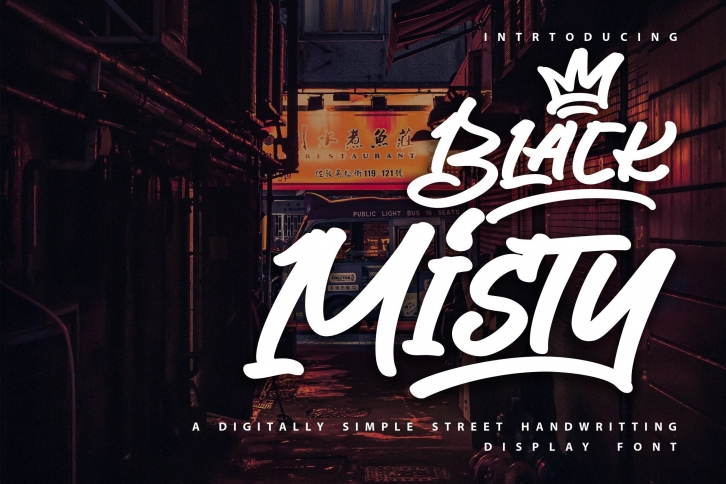
Black Misty is a street handwriting display font with a calligraphy style. It looks so beautiful on invitations, greeting cards, branding materials, business cards, quotes, posters, and more!